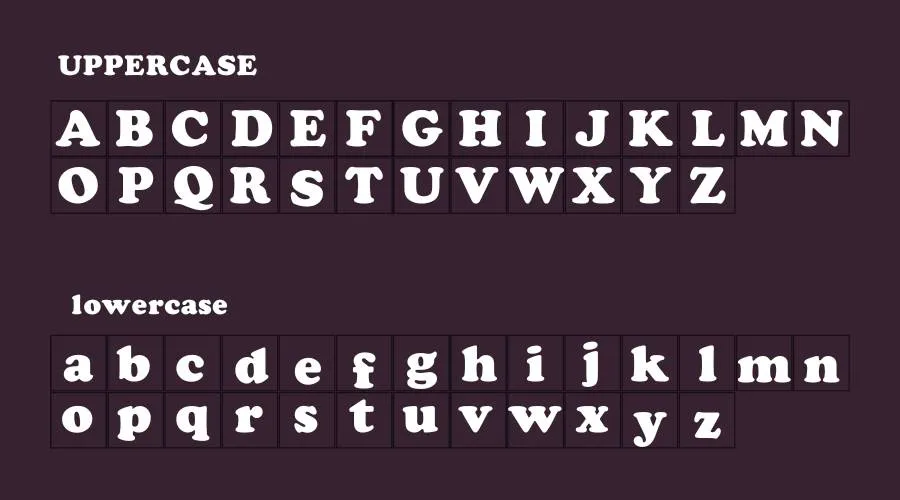
Cooper Black Att Font
About Cooper Black Att Font
Cooper Black Att Font is an ultra-bold serif typeface known for its boldness and attractive texture. In 1922, this font was designed by a Chicago-based type designer Oswald Bruce Cooper. It has an elegant texture that is available in both OTF and TTF file formats.
This font contains a variety of alphabet characters such as uppercase letters, numerals, digits, symbols, and punctuations.